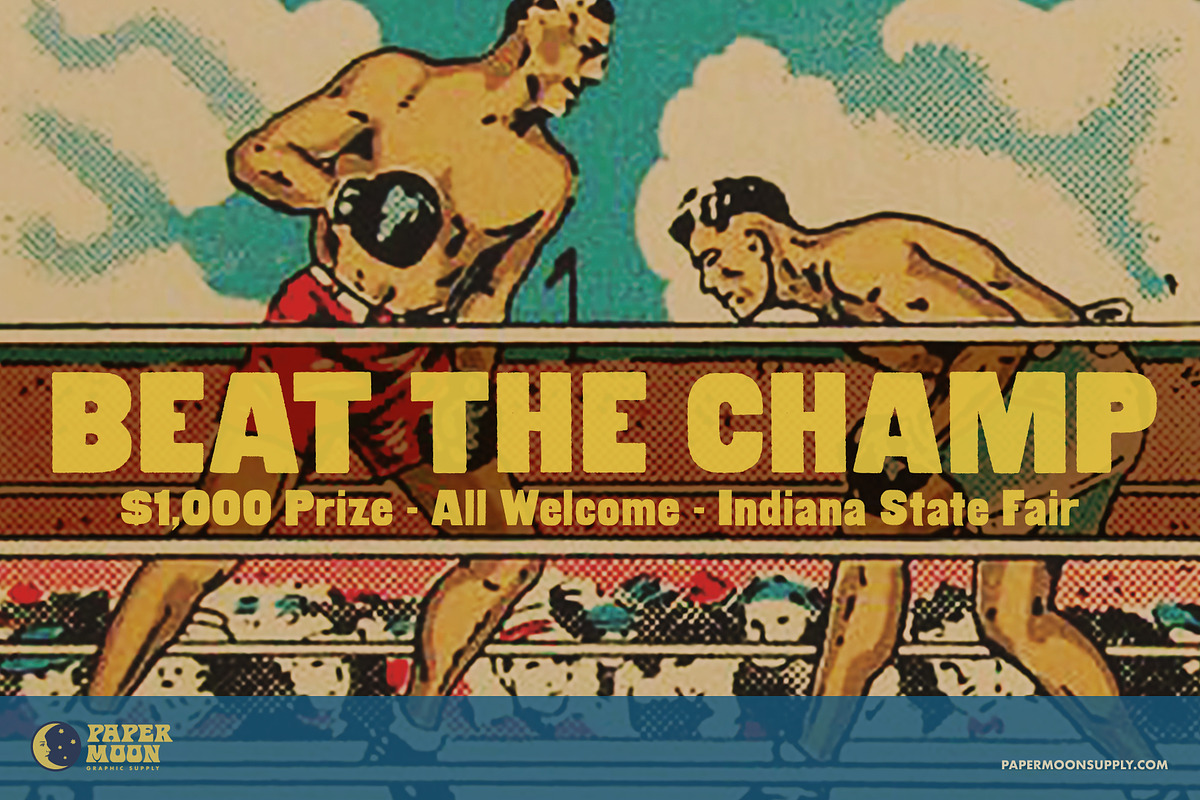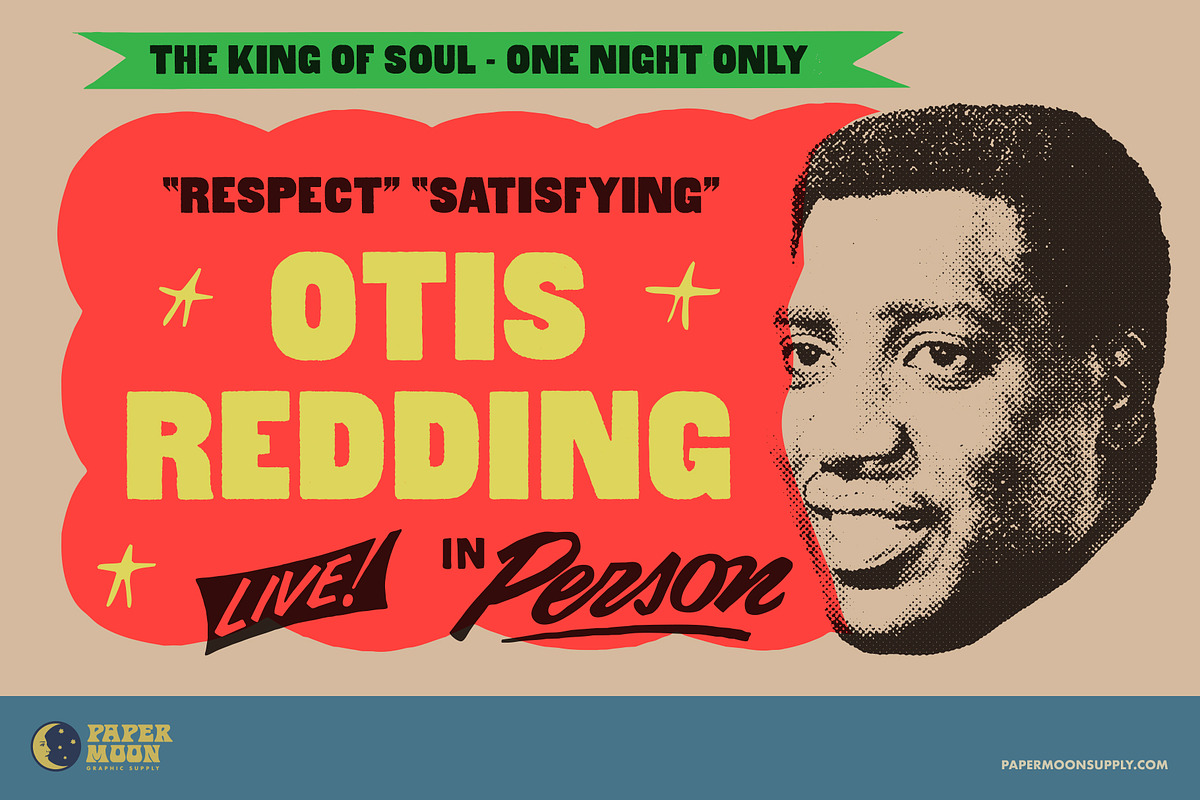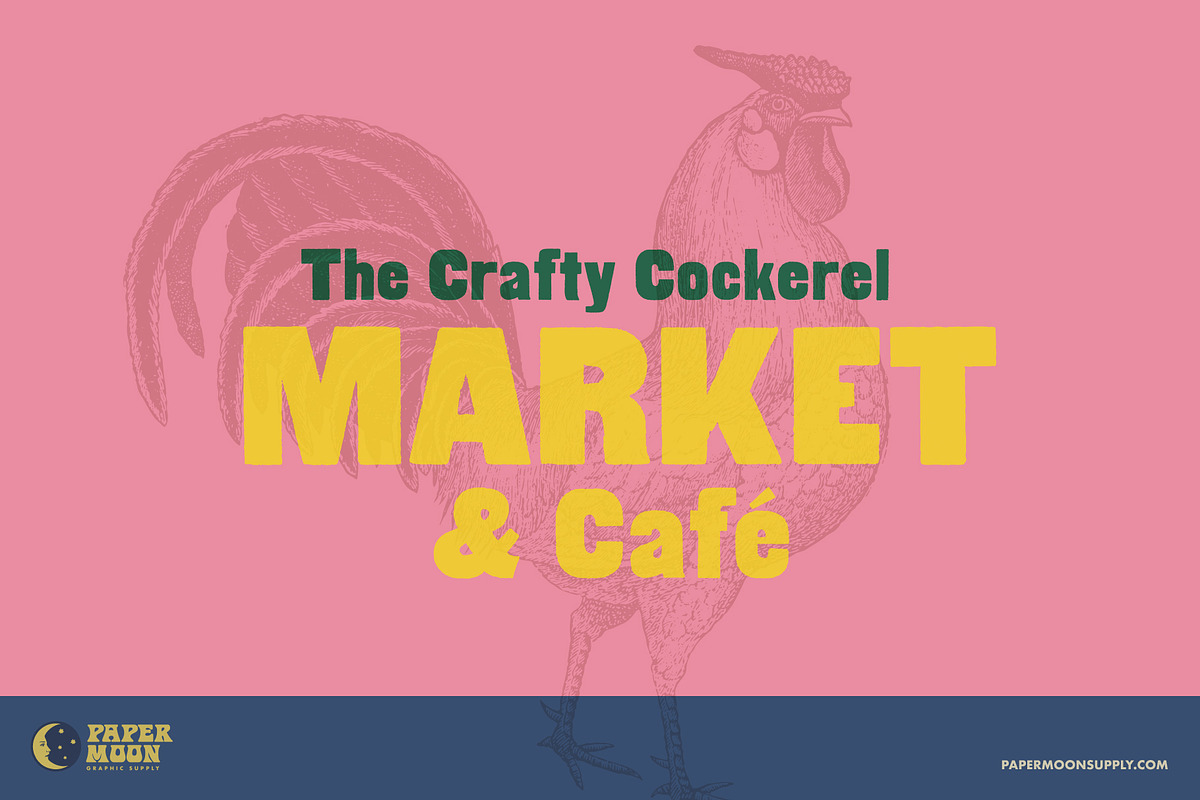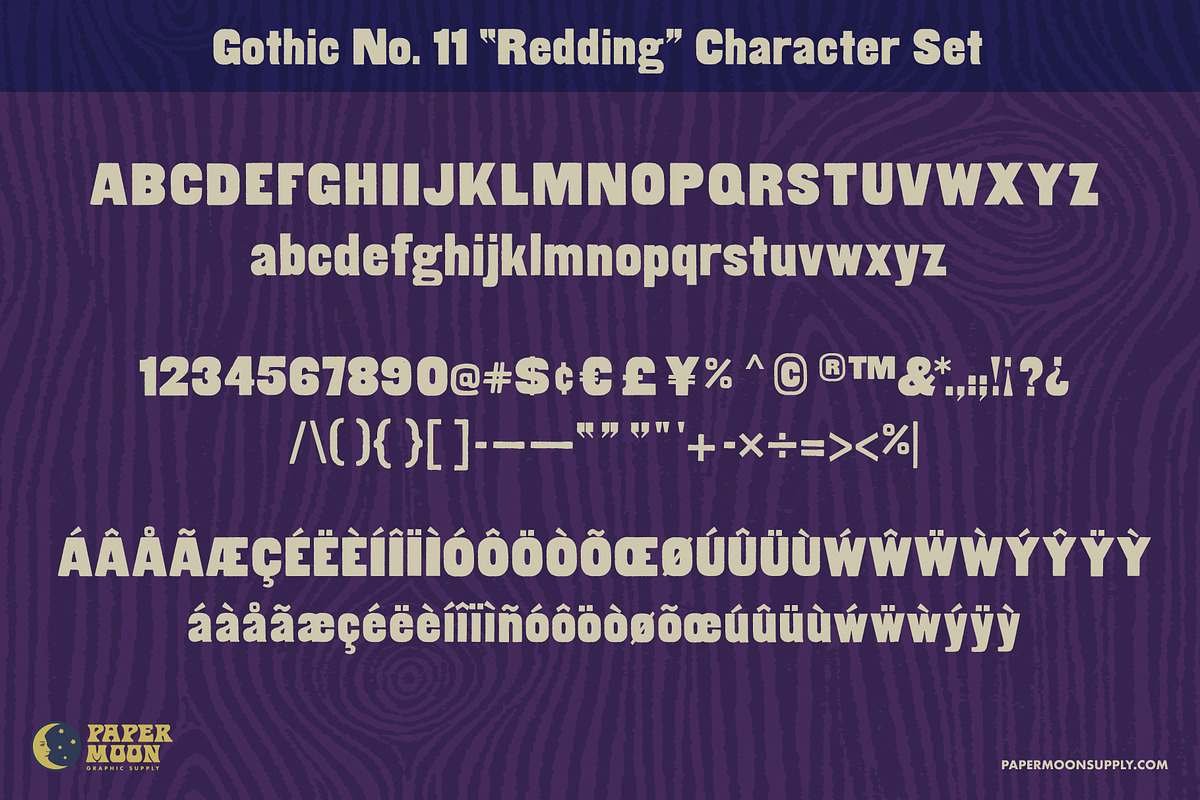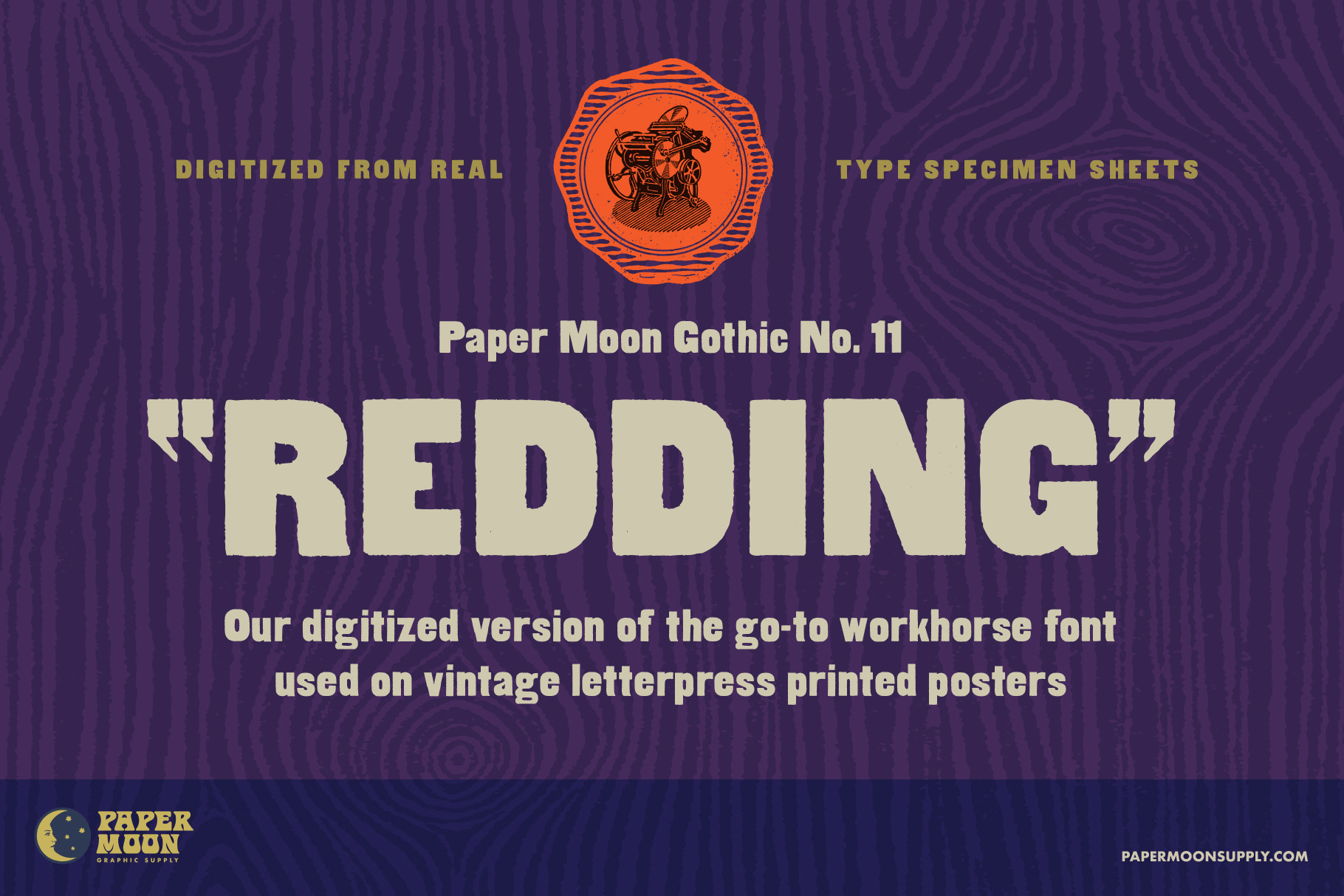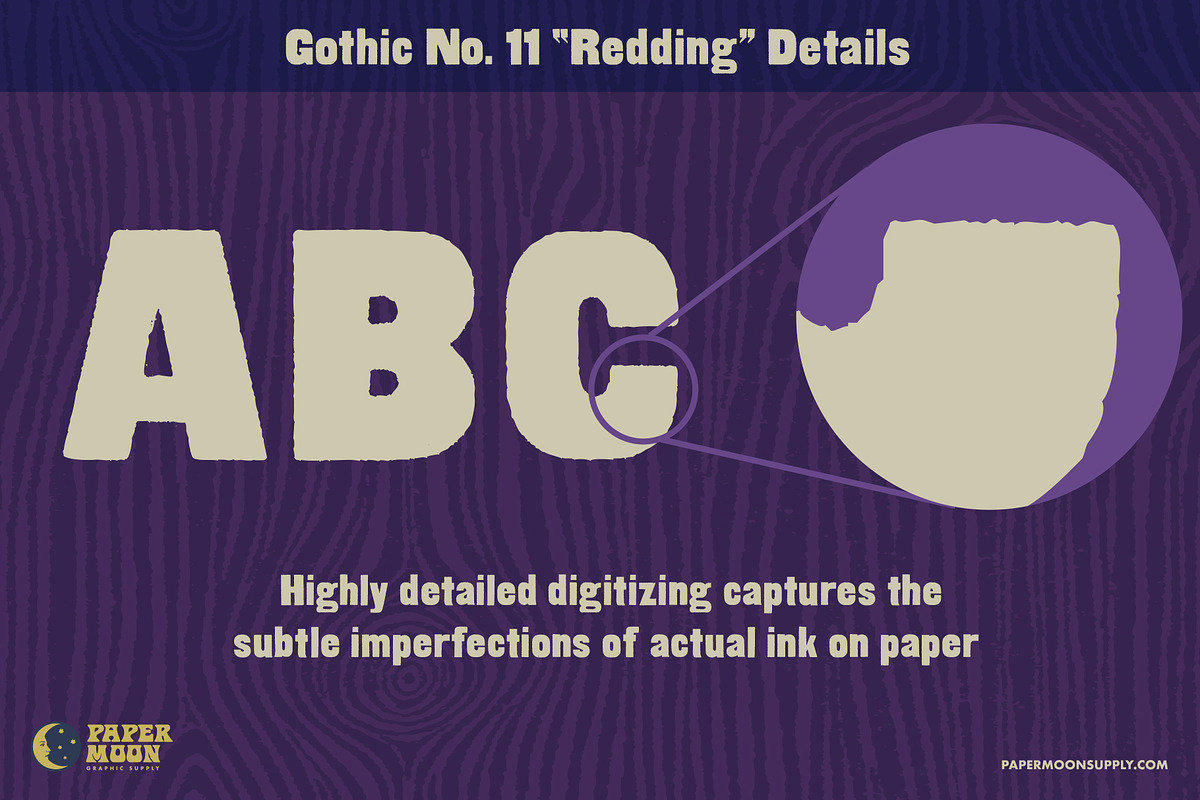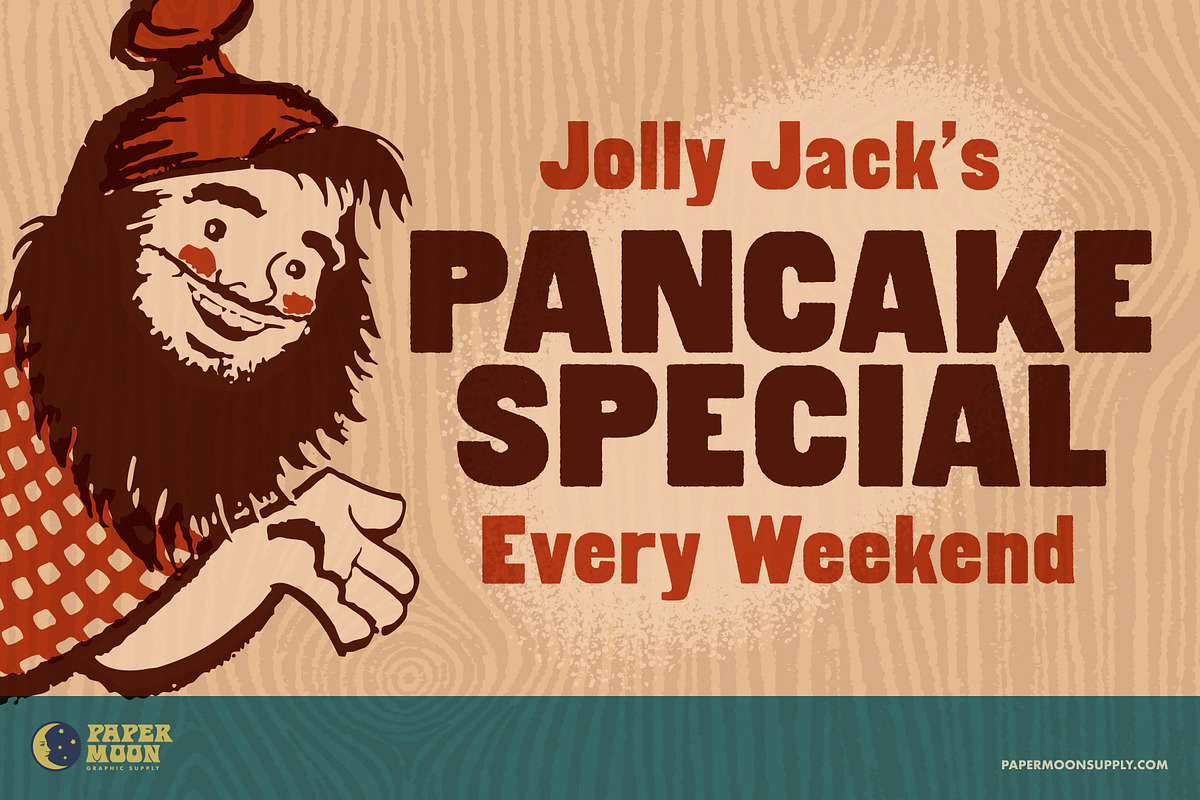
Redding Letterpress Font
A new digitized letterpress font from vintage concert posters and show prints.
Redding is our version of the classic wood type font Gothic No. 11. Gothic No. 11 was the workhorse font used on vintage letterpress concert posters and show prints by print-houses like Globe Poster and Hatch Show Print.
- Digital reproductions from actual letterpress printed specimen sheets
- Highly-detailed ink-on-paper edge reproduction
- Complete alphabet, number, and punctuation sets